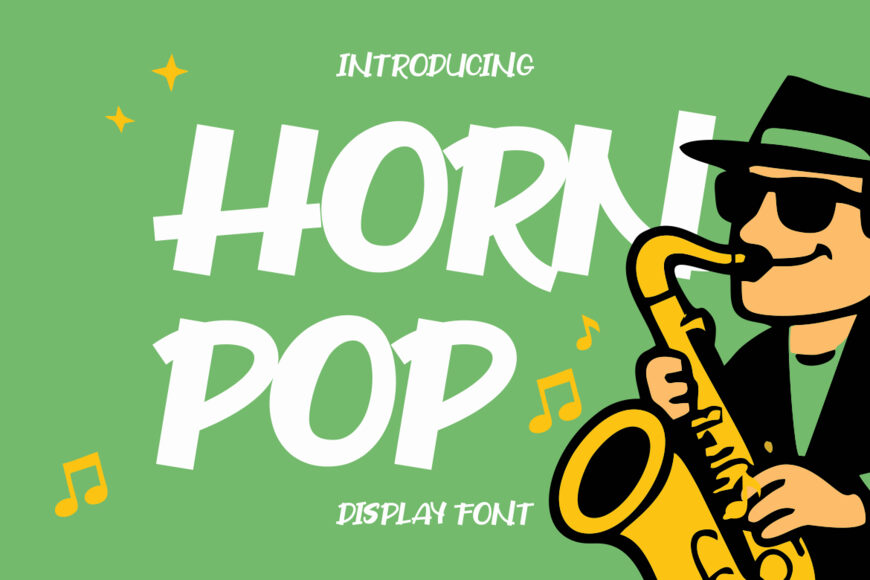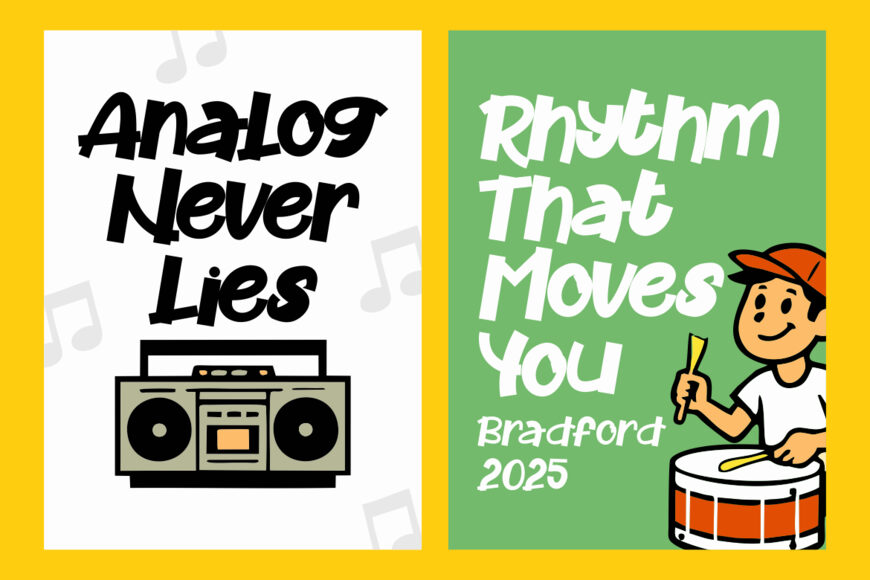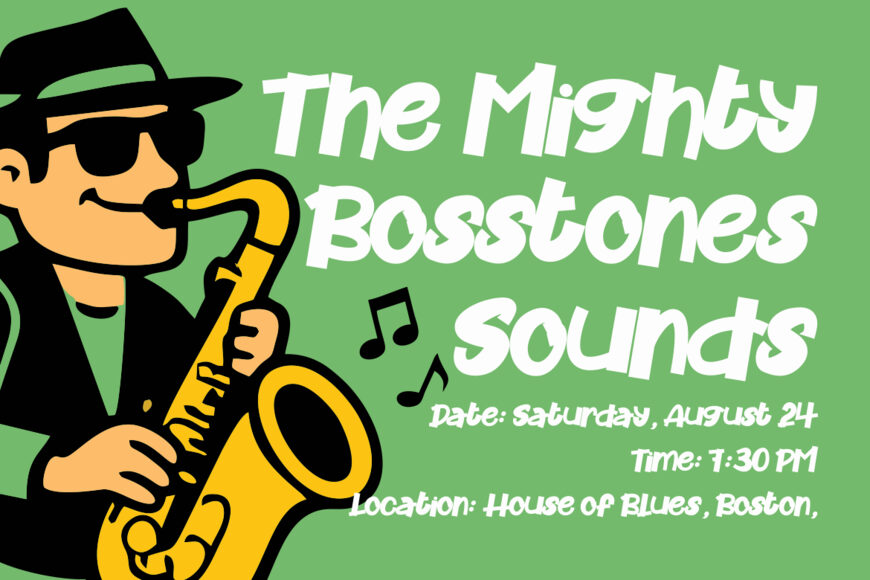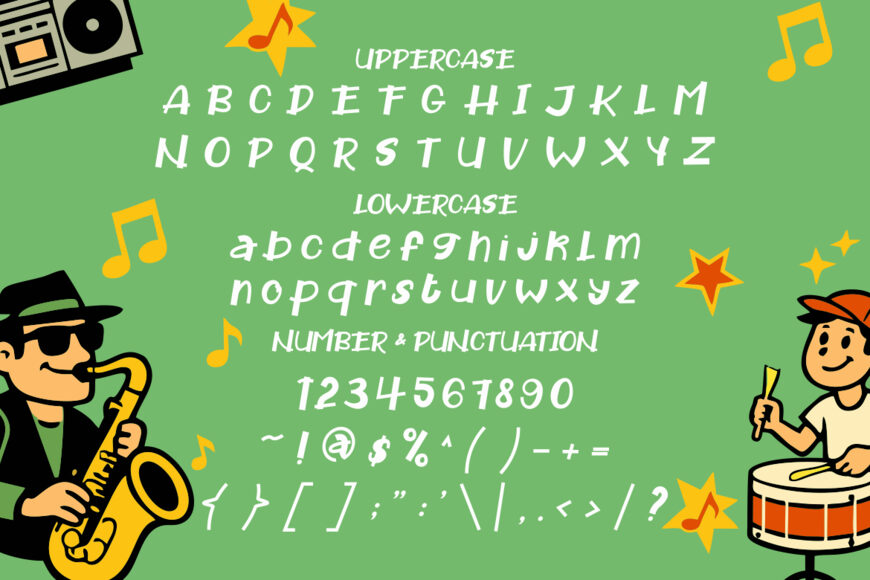
Horn Pop is a bold display typeface inspired by expressive handwriting. Its thick, slightly irregular strokes create an energetic, lively rhythm, while the gentle slant of each character suggests movement and spontaneity. A relaxed baseline adds a playful bounce, and rounded terminals soften the overall appearance.
Tight letter spacing keeps words unified, especially in strong, eye-catching layouts. By combining the charm of casual script with the impact of display lettering, Horn Pop works well for expressive headlines and attention-grabbing designs.